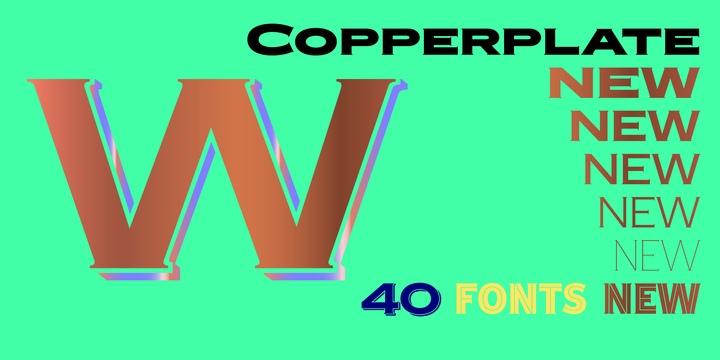
Copperplate New Font
Copperplate New Font is perfect for traditional law firms, prestigious financial institutions, distinguished government agencies, formal business communications, heritage banking services, and established corporate documentation. Its authoritative character makes it ideal for official government documents, formal institutional letterheads, traditional insurance companies, established university communications, professional certification programs, and any project requiring institutional authority with timeless credibility and formal excellence appeal.
This font is exciting because it represents the pinnacle of formal typographic tradition and institutional authority while delivering contemporary functionality for organizations requiring the highest levels of professional gravitas and formal communication standards. The meticulously crafted letterforms embody centuries of typographic excellence and formal communication tradition, creating typography that commands instant respect and conveys unquestionable authority and institutional credibility.
The Copperplate New Font family typically includes Light, Regular, Medium, and Bold weights with traditional alternates, formal ligatures, and institutional elements that enhance its authoritative personality. This comprehensive collection enables institutional professionals to create distinguished brand systems that maintain formal credibility while offering flexibility for various official applications requiring both traditional authority and contemporary professional positioning.
Whether you're developing identity systems for prestigious institutions, creating materials for formal government communications, or designing official documentation for established organizations, Copperplate New Font Free Download delivers the institutional authority and formal excellence that resonates with audiences seeking traditional credibility and established professional standards. Its distinguished presence ensures respected brand recognition across digital platforms and print materials, making it perfect for websites, mobile applications, and institutional campaigns that celebrate formal tradition, professional authority, and the enduring power of established institutional credibility with contemporary relevance and authentic formal distinction.